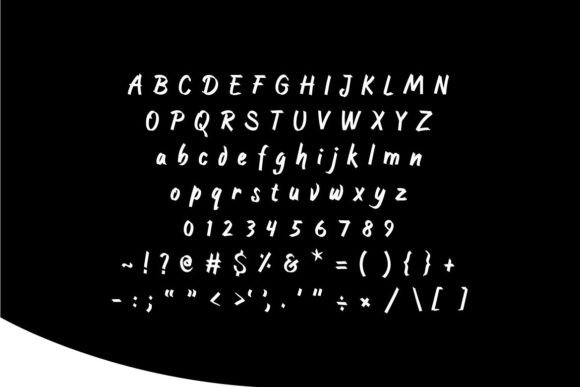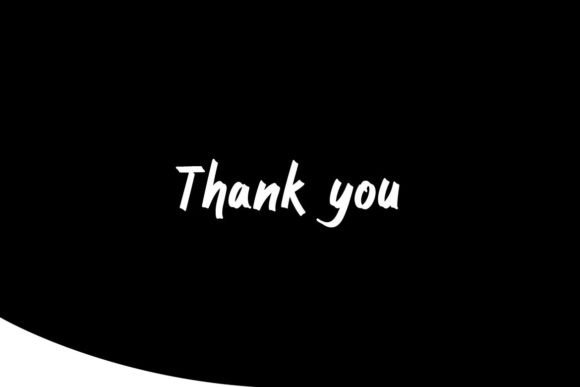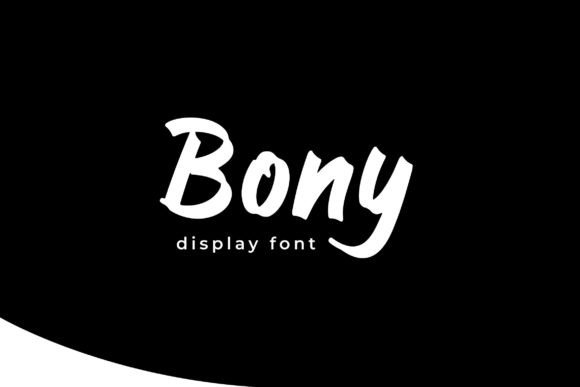
Bony Font: Elevate Your Designs with a Modern Brush Style
In the world of typography, fonts play a crucial role in conveying the tone and aesthetic of a design. For designers and crafters looking to add a touch of modernity and elegance to their work, the Bony font is an excellent choice. This modern brush font has been gaining popularity for its clean, bold, and brushed style, making it perfect for a wide range of applications.
What is Bony Font?
Bony is a contemporary brush font that brings a fresh and modern look to any design project. Its unique blend of bold and brushed styles gives it a distinctive edge, setting it apart from more traditional fonts. Whether you’re working on book titles, music covers, children’s books, posters, advertisements, social media content, logos, or any other creative project, Bony font is an excellent choice.
Key Features of Bony Font
- Modern and Clean Design: Bony font boasts a sleek and modern design that instantly elevates the visual appeal of your work.
- Bold and Brushed Style: The font’s bold and brushed style adds a touch of sophistication and elegance, making it perfect for designs that require a bit of flair.
- Versatile: Bony font can be used in a wide range of applications, from print materials like books and posters to digital content like social media graphics and logos.
- Easily Readable: Despite its bold style, Bony font remains easily readable, making it perfect for body text and headings.
Use Cases for Bony Font
Bony font is incredibly versatile and can be used in various design projects, including:
- Book Titles: Add a touch of modernity to your book covers with Bony font, making them stand out on bookshelves.
- Music Covers: Give your music covers a bold and eye-catching look with Bony font, perfect for albums, singles, and EPs.
- Children’s Books: Bony font’s playful yet elegant style makes it perfect for children’s book covers, illustrations, and text.
- Posters and Advertisements: Create striking posters and advertisements with Bony font, grabbing the attention of your audience.
- Social Media Content: Elevate your social media content with Bony font, making your posts, stories, and graphics more engaging and shareable.
- Logos and Branding: Use Bony font to create unique and memorable logos, adding a touch of modernity to your brand’s identity.
Tips for Using Bony Font Effectively
To get the most out of Bony font, consider the following tips:
- Pair with Complementary Fonts: Combine Bony font with complementary fonts to create visual interest and hierarchy in your designs.
- Experiment with Colors: Bony font looks great in bold colors, but don’t be afraid to experiment with different hues and shades to find the perfect fit for your design.
- Use for Headings and Titles: Bony font is perfect for headings and titles, but consider using a more traditional font for body text.
Bony font is a modern brush font that brings a fresh and elegant look to any design project. Its bold and brushed style, combined with its versatility and readability, make it an excellent choice for designers and crafters. Whether you’re working on print materials, digital content, or logos, Bony font is sure to elevate your designs and make them stand out.